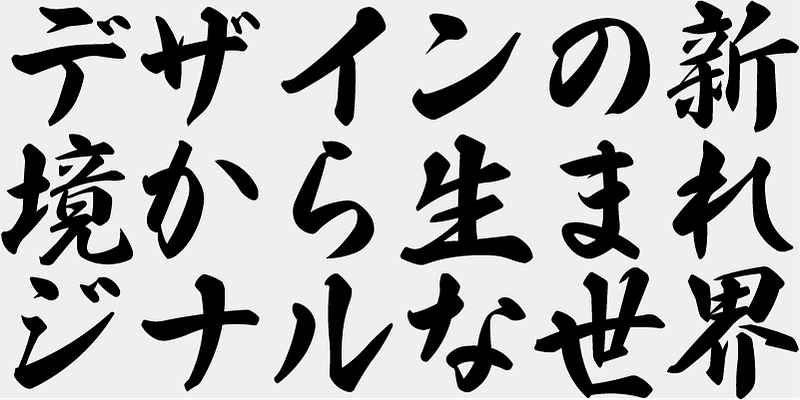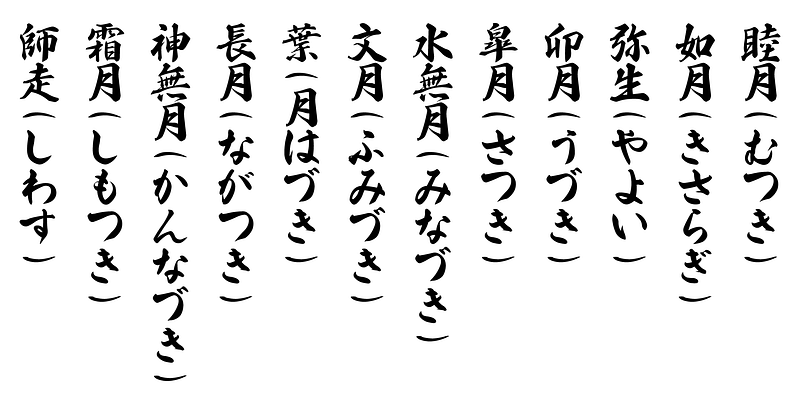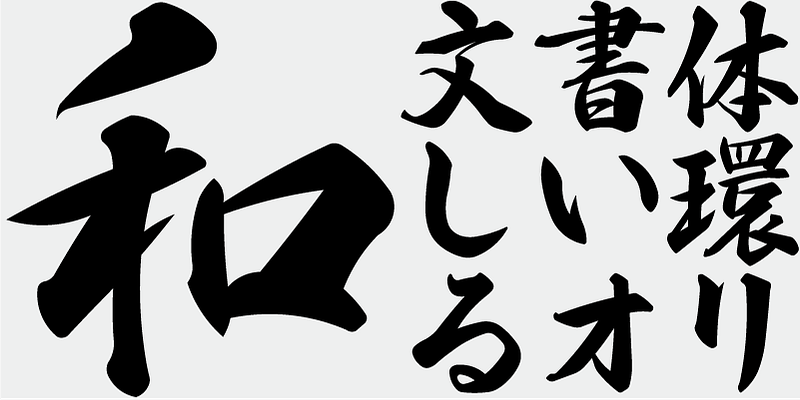
TA-Fuga Fude is a brush semi-cursive script font acquired under a non-exclusive license in November 1996 and was adopted for “Gradeo,” a total design software dedicated to sign displays released in April 1997. The original font names were “GF Gyosho EB” for Regular and “GF Gyosho M” for Light, but when font name prefixes were unified to “TA” in 2000, it was incorporated into the Fuga series as “TA-Fuga Fude.” *Half-width characters feature designs common to the brush fonts in the TA/TAw series.
JIS Character Range
JISX0212. Includes a total of 6,743 kanji: JIS Level 2 kanji (6,355 characters) rarely used in Japanese plus an additional 388 characters.
These fonts were first released in 1997, bundled with the Gradeo software for making signs and displays.